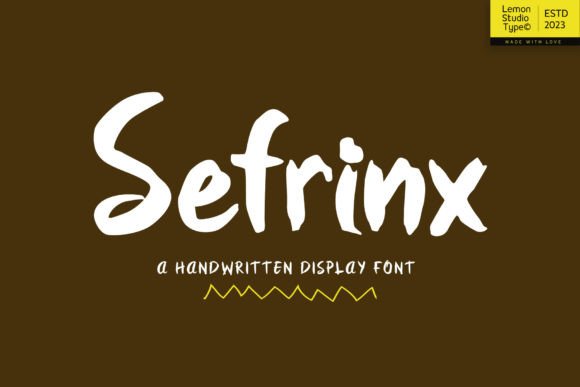
Journey into the realm of Sefrinx, a captivating display font that exudes charm and playfulness. Its natural brushstrokes dance across the canvas, creating a visual symphony that is sure to leave your designs enchanting. Sefrinx is not just a font; it's an artistic expression that will transform your projects into captivating masterpieces.
Immerse yourself in the world of Sefrinx, where creativity knows no bounds. This extraordinary font family is meticulously crafted to cater to the unique needs of children's ministry. Its playful and whimsical nature resonates with the innocent hearts of young ones, creating a connection that sparks imagination and wonder. With Sefrinx, your ministry materials will come alive, captivating young minds and leaving an imprint that will stay with them forever.
Sefrinx is more than just a font; it's a gateway to a world of creativity and self-expression. Whether you're designing posters, flyers, invitations, or any other promotional material, Sefrinx will elevate your work to new heights. Its versatility shines through, allowing you to effortlessly create designs that are both visually appealing and impactful.
Unleash your imagination and let Sefrinx take you on an artistic journey. Its natural and simple theme provides the perfect canvas for your creativity to flourish. Whether you're a seasoned designer or just starting out, Sefrinx will guide you effortlessly, helping you create designs that are both stunning and meaningful.